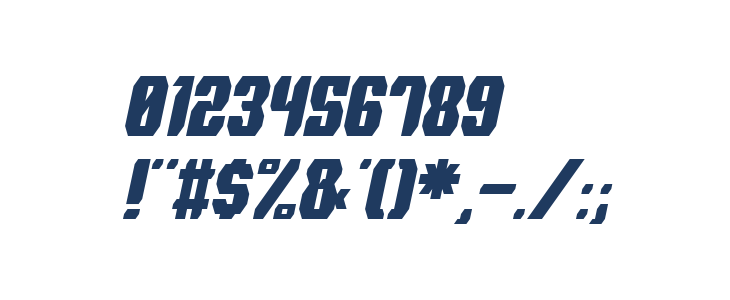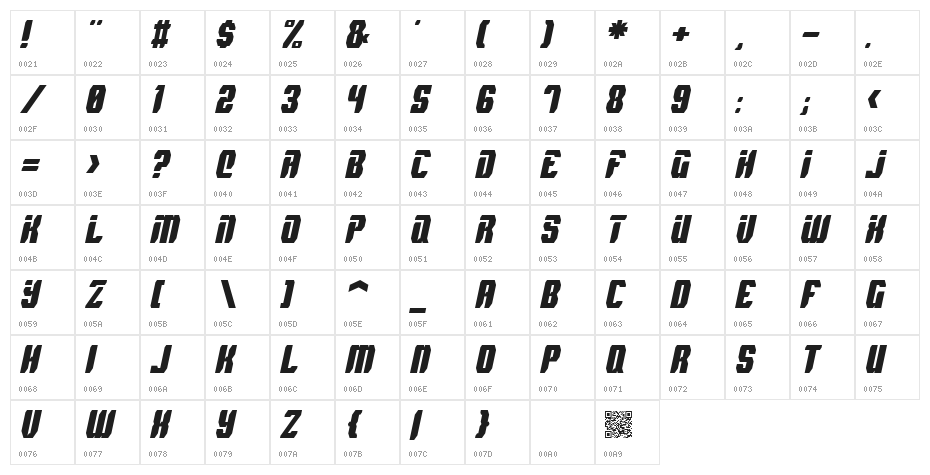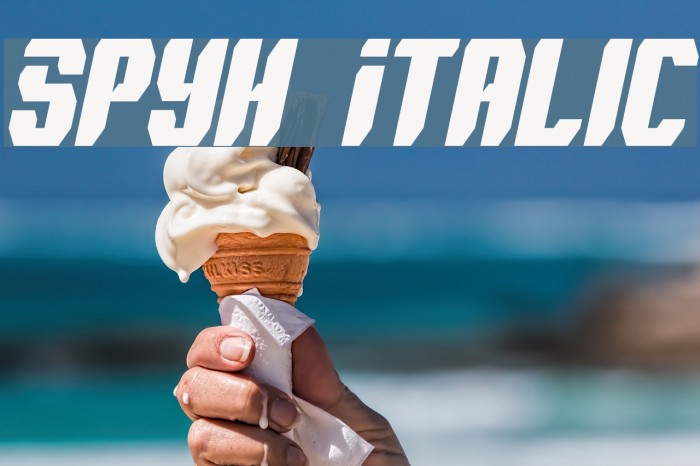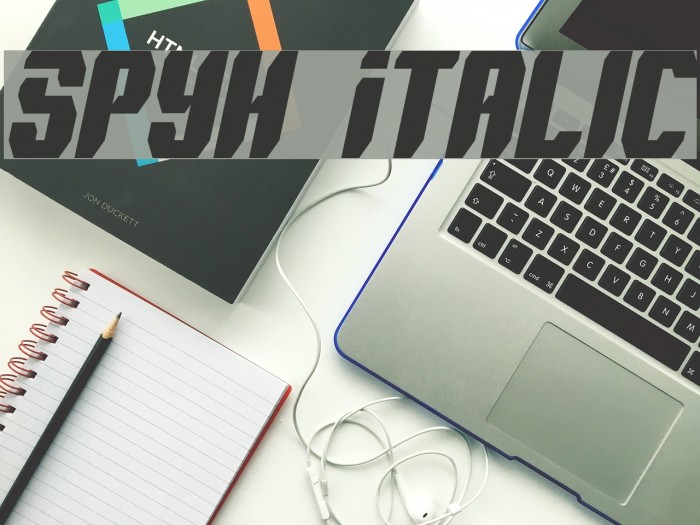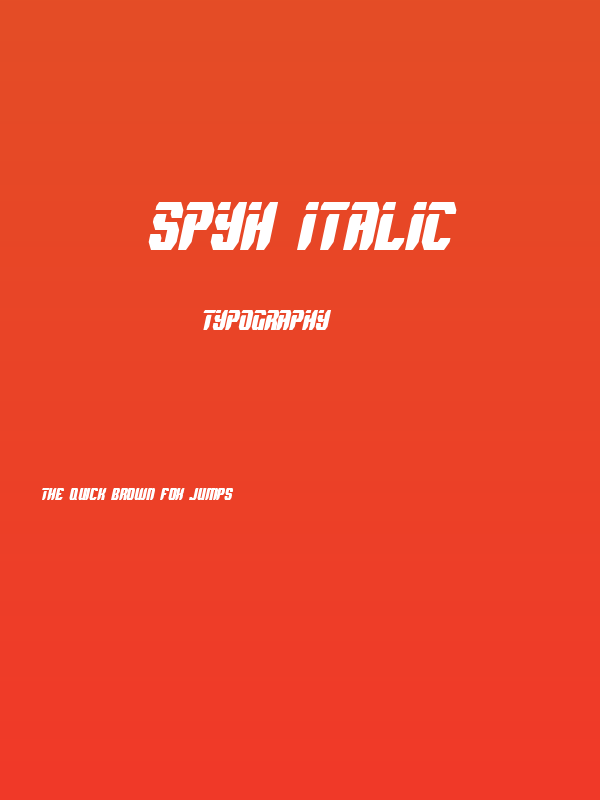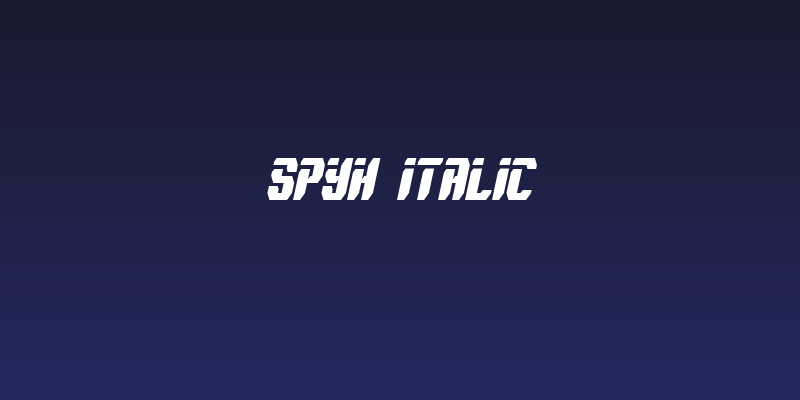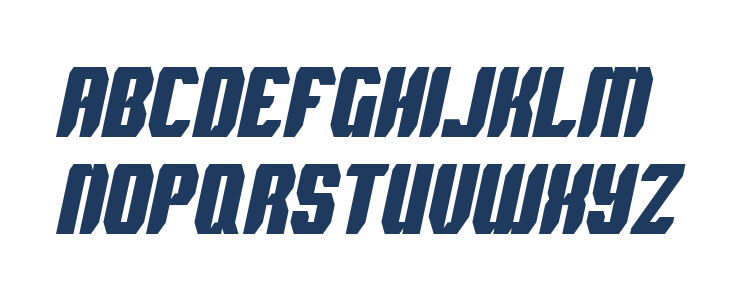
Spyh Italic Font
Spyh Italic Description
This font features a bold and dynamic style with a strong italic slant, giving it a sense of movement and energy. The characters are designed with sharp angles and a geometric structure, creating a futuristic and edgy appearance. The uppercase and lowercase letters maintain a consistent style, with a uniform stroke width that enhances readability. The numbers and special characters are equally bold, ensuring they stand out in any design. This font's unique style makes it suitable for projects that require a modern and impactful look.
| Proposed Projects | Ideal for sports branding, action movie posters, video game titles, and dynamic advertising campaigns. |